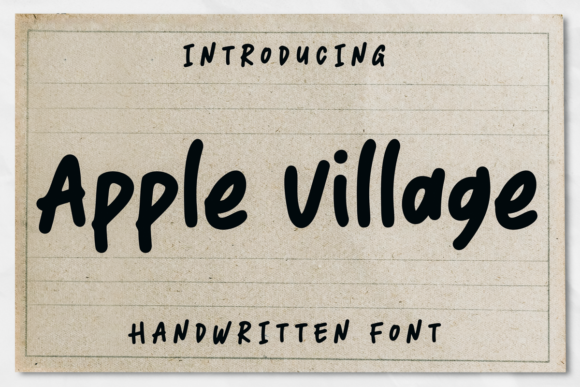
The Perfect Brush for Your Creative Masterpiece
As a designer, you’ve probably had that moment where the perfect font just clicks into place, elevating your entire project to the next level. It’s a feeling of excitement and satisfaction, knowing that you’ve found the perfect brush to bring your vision to life.
Enter the Apple Village Font, a clean and simple handwritten font that’s perfect for a wide range of designs, from logos and T-shirts to ads and more. With its versatility and charm, this font is sure to add a touch of personality to any project. Whether you’re a seasoned pro or just starting out, the Apple Village Font is a valuable addition to any designer’s toolkit.
Apple Village Font Key Features
- Font Family: Apple Village Font is a unique, hand-drawn typeface designed to evoke a sense of warmth and coziness.
- Unique Characteristics: Apple Village Font features a distressed, vintage aesthetic with subtle imperfections and irregularities, adding a touch of authenticity to designs.
- Character Count: The font contains a wide range of characters, including uppercase and lowercase letters, numbers, punctuation marks, and special characters.
Review of Apple Village Font
Overall, I’d say Apple Village Font is a cute and quirky addition to any design project. It’s got a certain charm to it that can really make a design stand out. Here are some things that I think work well:
- ✨ Unique character set: Apple Village Font has a lot of personality and character, which can add a lot of visual interest to a design.
- ✨ Versatile: It’s not just for kid’s designs, it can work for modern branding and design elements.
- ✨ Friendly: The font is friendly and approachable, making it perfect for designs that need a warm and inviting tone.
- ⚠️ Limited font sizes: Apple Village Font doesn’t perform well at very large font sizes, which can make it difficult to use for headings or titles.
- ⚠️ May not be suitable for formal designs: The font’s playful nature may not be suitable for more formal or professional designs.
Overall, I think Apple Village Font is a great addition to any designer’s toolkit, but it’s not a one-size-fits-all solution. Use it sparingly and thoughtfully, and it can really add some personality to your designs.
Apple Village Font Practical Application Guide
Tips for Getting the Most Out of Apple Village Font
Use Apple Village Font for designs that require a whimsical and playful feel.
Combine Apple Village Font with other fonts to create a unique and eye-catching design.
Apple Village Font is perfect for:
Children’s book covers
Food and beverage branding
Event invitations
Wedding stationery
Alternatives to Apple Village Font
Playfair Display is a luxurious and elegant script font, ideal for creating a high-end feel in branding and advertising. It’s perfect for use in invitations, magazine headlines, and luxury packaging. Playfair Display has a more ornate and complex design compared to Apple Village Font, making it a better choice for creating a sophisticated and refined look.
Lato is a modern sans-serif font that is highly legible and versatile, making it suitable for use in digital and print media. It’s an excellent choice for creating a clean and minimalist design, and can be used for body text, headings, and titles. Lato is more straightforward and simple compared to Apple Village Font, making it a better choice for creating a modern and sleek design.
Great Vibes is a beautiful and elegant script font that is perfect for creating a fun and playful design. It’s ideal for use in advertising, branding, and packaging, and can add a touch of whimsy to any design. Great Vibes has a more casual and relaxed feel compared to Apple Village Font, making it a better choice for creating a friendly and approachable look.
Ostrich Sans is a modern sans-serif font that is highly legible and versatile, making it suitable for use in digital and print media. It’s an excellent choice for creating a clean and minimalist design, and can be used for body text, headings, and titles. Ostrich Sans is more straightforward and simple compared to Apple Village Font, making it a better choice for creating a modern and sleek design.
For optimal readability, we recommend using the Apple Village Font at a size between 12pt and 14pt, with a line height of at least 1.2 times the font size. This will provide a clear and comfortable reading experience, especially for body text and captions.